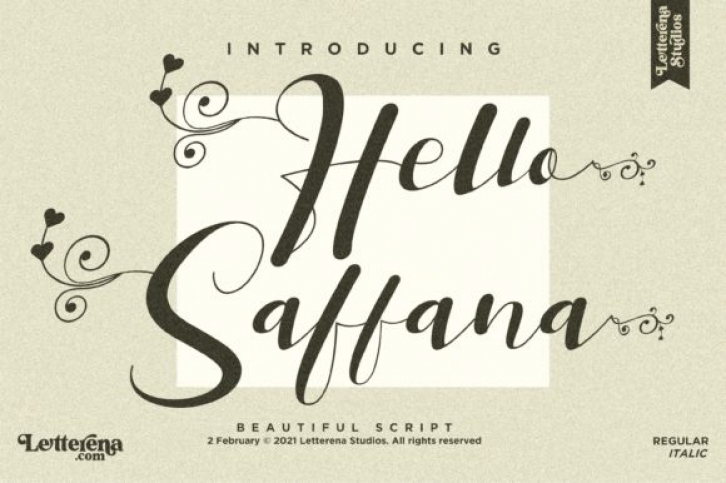
Hello Saffana is a sweet, all round and flexible handwritten font. Warm, romantic and jolly, this font will turn each of your project ideas into real works of art. Have fun with this beautiful font and explore its endless variations. This font is PUA encoded which means you can access all of the glyphs and swashes with ease!